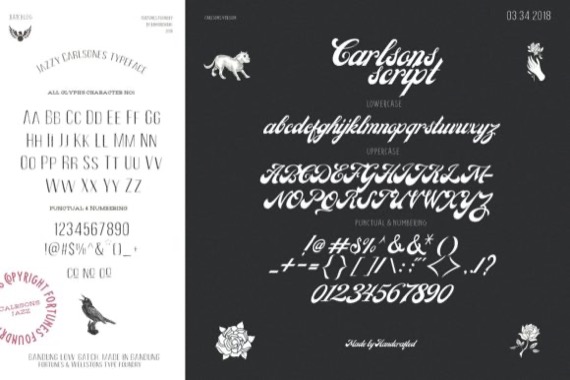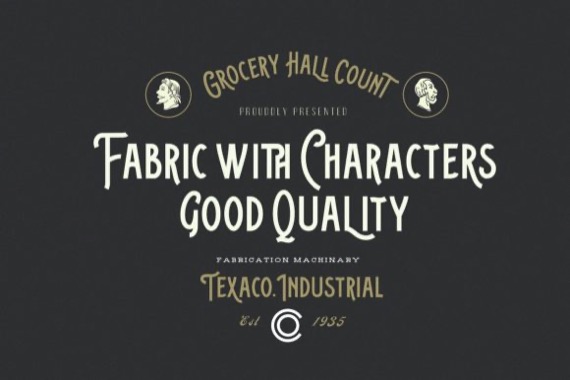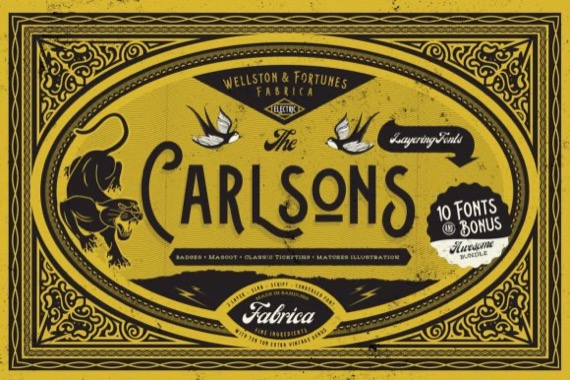
Carlsons is a retro groovy display font, Each glyphs has a cool look along with 10 gorgeous display fonts. It was inspired by vintage sign posters.
Carlsons Retro Groovy Font